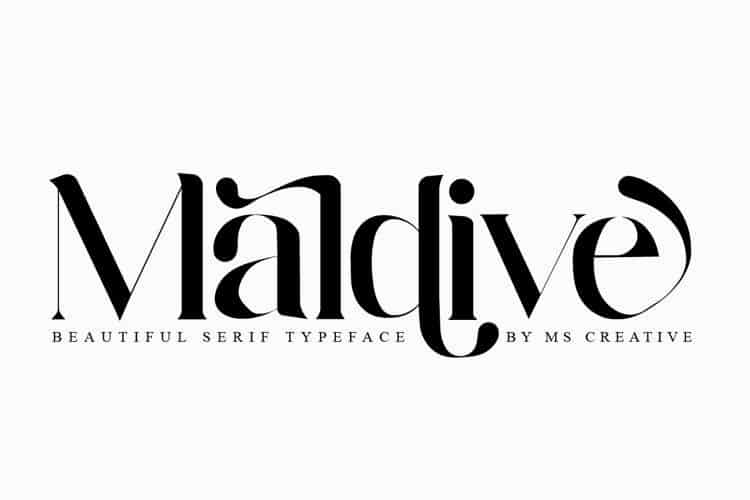
Maldive Serif Font
Maldive Serif Typeface is a unique simple and clean serif, and Maldive features unique and modern serif look and feel.It is perfect for gorgeous logos, titles, web layouts, fashion magazine and branding.
It looks gorgeous in all caps with a wide-set spacing if you want to try a classy look, or beautiful on its own in capital and lowercase letters for something completely